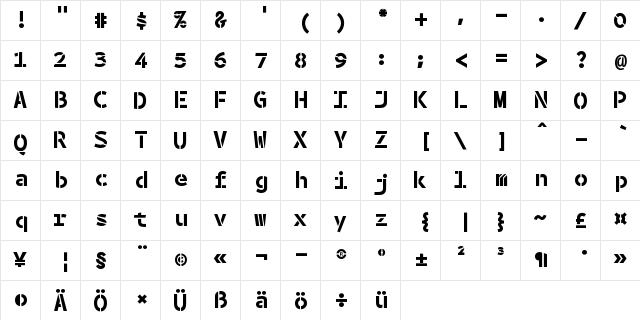
BPmonoStencil Bold
Design Context for BPmonoStencil Typeface
BPmonoStencil has the rough pragmatism of spray-painted stencil signage, adding a raw, street-level authenticity to designs. The heavy weight commands attention and anchors typographic hierarchies.
A strong choice for packaging that needs edge, warehouse aesthetics, and rough-and-ready visual identities.
Pro Tip: Use BPmonoStencil at large sizes on packaging, posters, or apparel where the stencil cutaways read clearly. Avoid small sizes where those gaps become visual noise.